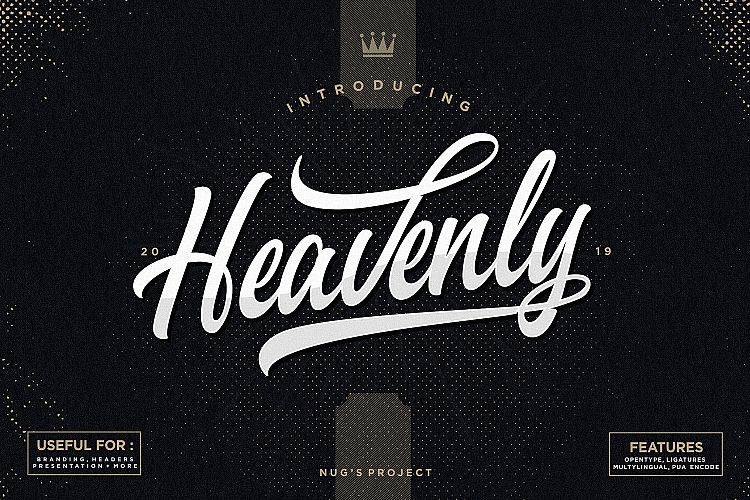
Heavenly Script Typeface
Heavenly Font – is a calligraphy script font created and shared by Nug’s Project. Heavenly Script Typeface is a script typeface with personality, and multi-purpose font. it can be used as a signage, poster, brand identity, advertising, etc. Heavenly The flowing characters are ideal for attractive messages, mix and match, with a variety of alternative characters to fit your project.